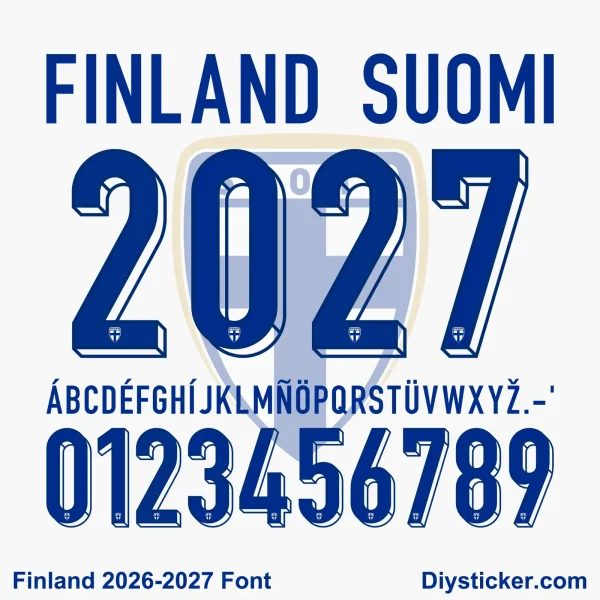
Professional Grade Finland 2026-2027 Font for Sports Enthusiasts
Are you looking to recreate the authentic look of the Finnish national football team? Our Finland 2026-2027 Font is the ultimate digital asset for fans, graphic designers, and sports apparel manufacturers. This premium typography pack captures the unique aesthetic of the upcoming 2026 and 2027 seasons, ensuring your custom jerseys, posters, and digital content look professional and official.
The Finland 2026-2027 Font is meticulously crafted to match the bold, 3D block style seen on the international stage. Whether you are using it for a DIY project or professional printing, the crisp lines and distinctive shadowing of this Finland national team jersey font 2026 download will provide that sought-after “on-pitch” feel. This font isn’t just about letters and numbers; it’s about representing the “Huuhkajat” spirit with every character.
Why Choose the Finland 2026-2027 Font?
Precision is what sets this Finland soccer jersey name and number font vector apart. Each digit features the iconic integrated crest at the bottom, a hallmark of modern national team kits. The character set includes the full alphabet (A-Z) with support for specific Finnish diacritics (like Ä and Ö), ensuring you can accurately spell any player’s name or custom text.
In conclusion, the Finland 2026-2027 Font is an essential tool for any fan or creator. With its combination of classic block styling and modern 3D depth, it provides the perfect balance of readability and visual impact. Download your copy today and start creating authentic Finnish sports gear that stands out in the crowd.